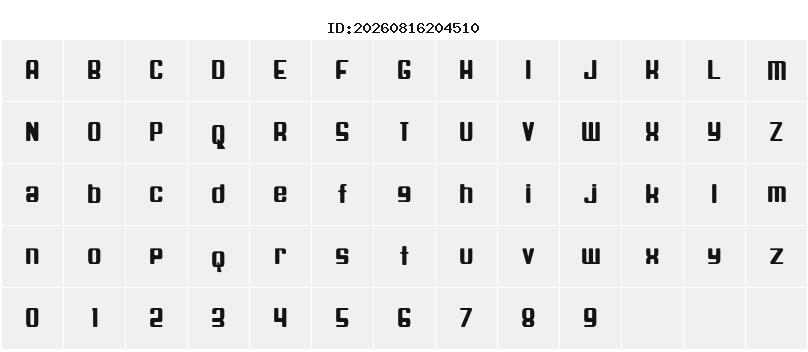
• Font Name: Spaceship Bullet
• Designer: Steve Fererra
About Spaceship Bullet.ttf
Spaceship Bullet.ttf is a modern, elegant sans-serif font designed for ultimate readability and visual harmony. Perfect for branding, headlines, web design, and print materials.